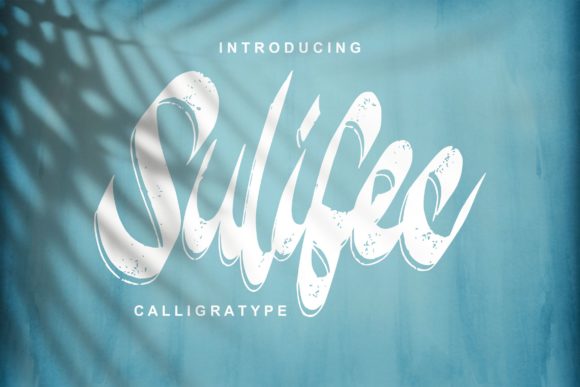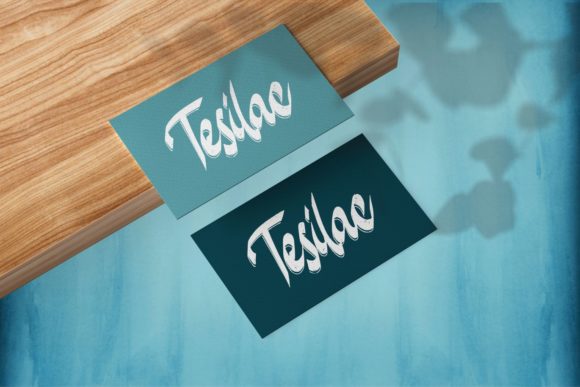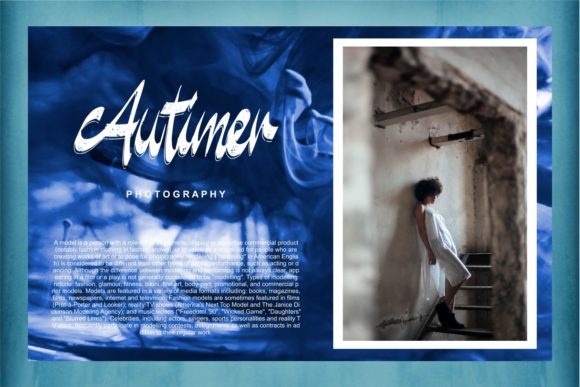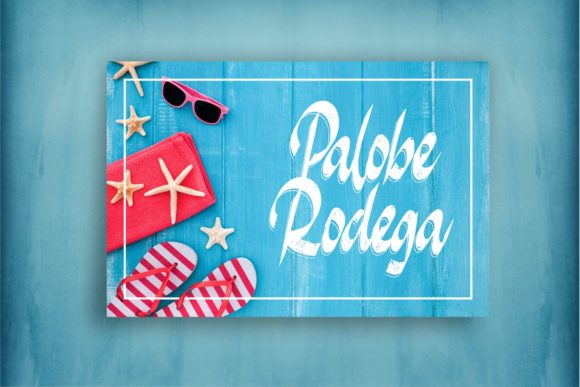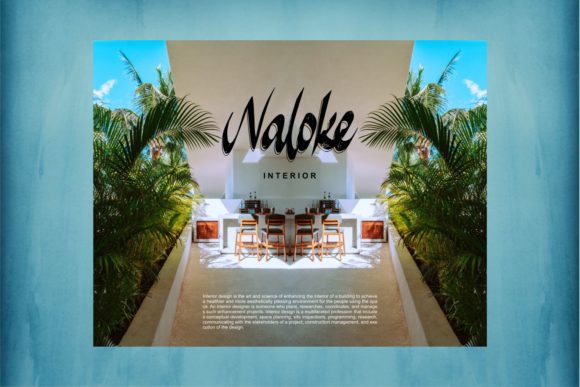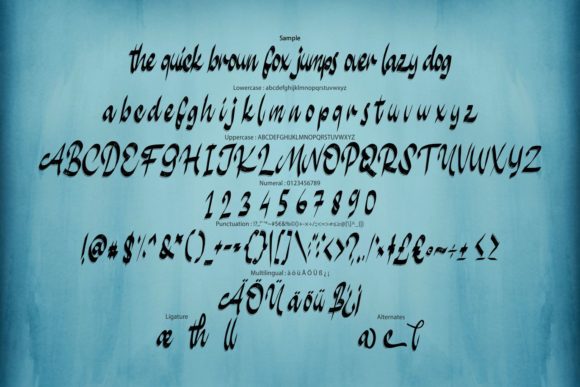
Sulifec Font
About Sulifec Font
Sulifec is a cute and casual handwritten font with an incredibly friendly feel. Whether you’re looking for fonts for Instagram or calligraphy scripts for DIY projects, this font will turn any creative idea into a true piece of art!